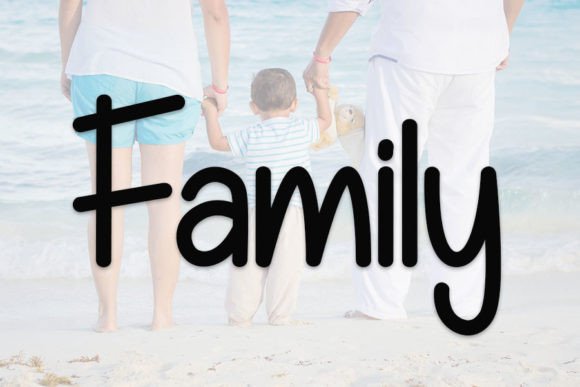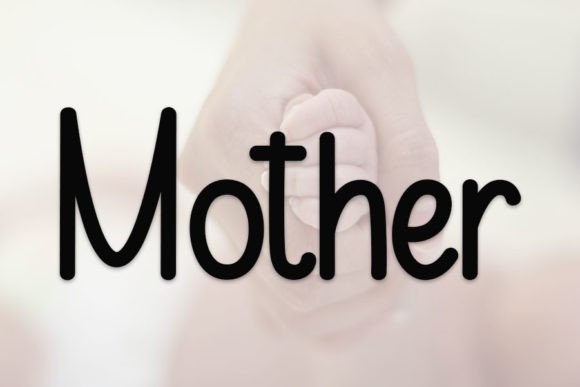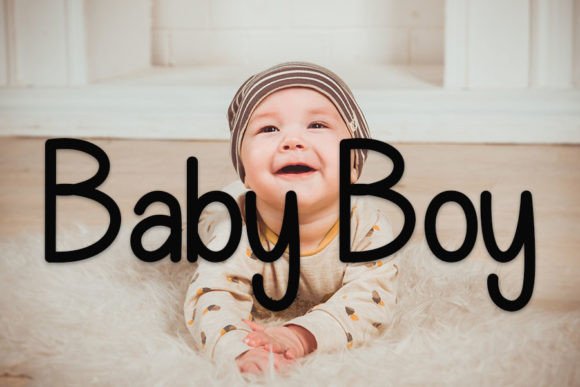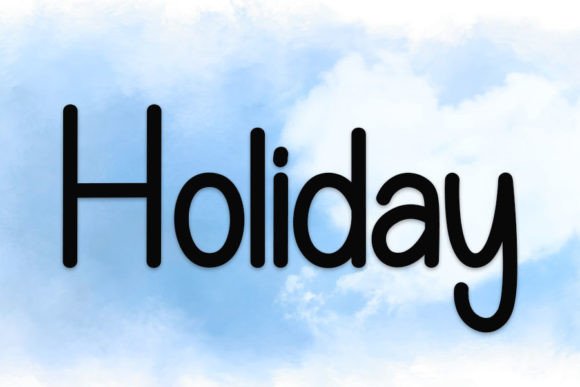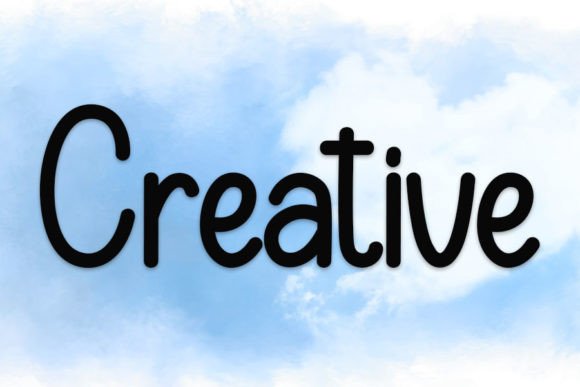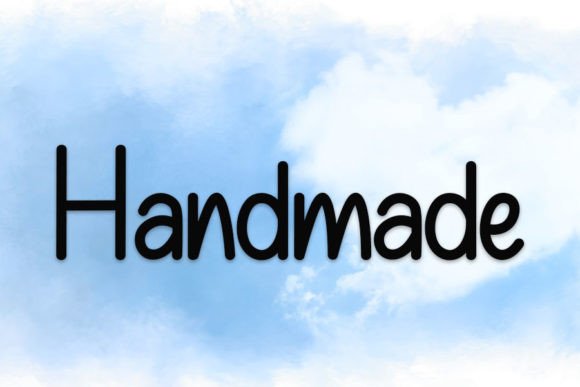
The Quest for the Perfect Font: Discovering Father Font
I still remember the frustration of working on a design project, hours spent crafting the perfect layout, only to hit a roadblock: finding the right font. My client wanted something elegant, yet playful; classic, yet modern. I scoured font libraries, but nothing seemed quite right. That was until I stumbled upon Father Font – a beautiful, handwritten font that stole my heart.
First Impressions: A Love Letter to Father Font
As soon as I laid eyes on Father Font, I knew I had found something special. This neat and beautiful handwritten font boasts an elegant touch, perfect for a wide range of projects. Its distinct and timeless style makes it easy to fall in love with. Here are a few things that make Father Font stand out:
- ✨ Elegant and refined, perfect for luxury brands or high-end designs
- 💫 Supports a wide range of languages and OpenType features
- 🎨 Versatile and adaptable, suitable for various design applications
The Honest Review: Not Perfect, But Close
While Father Font has won my heart, it’s not without its quirks. Here are a few things to keep in mind:
- 🤔 Limited availability of certain glyphs and special characters
- ⚠️ May not be the best choice for very long texts or body copy
Despite these limitations, Father Font remains an excellent choice for many design projects.
The Story Behind Father Font: A Designer’s Inspiration
While the true story behind Father Font remains a mystery, it’s easy to imagine a designer pouring their heart and soul into creating this beautiful font. Perhaps they drew inspiration from classic calligraphy, combined with a modern twist. Whatever the story, Father Font has captured the hearts of designers worldwide.
Q: What type of projects is Father Font best suited for?
A: Father Font is versatile and can be used for a wide range of projects, including branding, packaging, and digital designs.
Q: Does Father Font support OpenType features?
A: Yes, Father Font supports OpenType features, including ligatures, stylistic alternates, and glyphs.